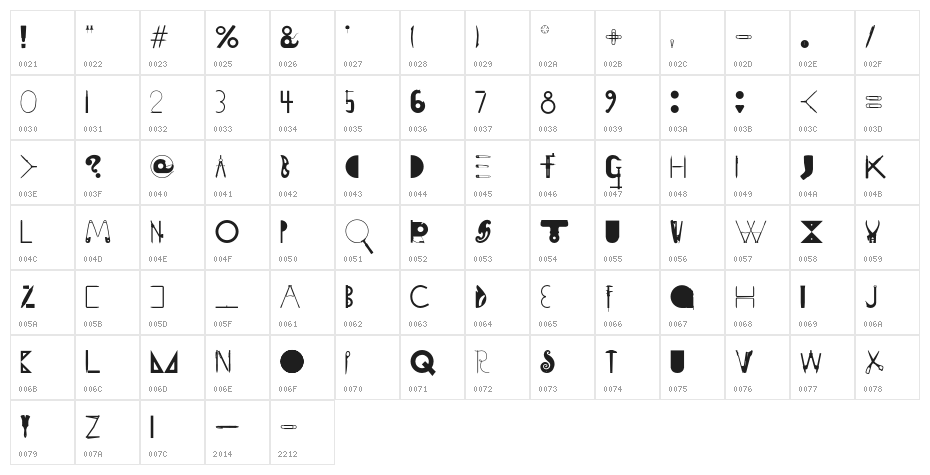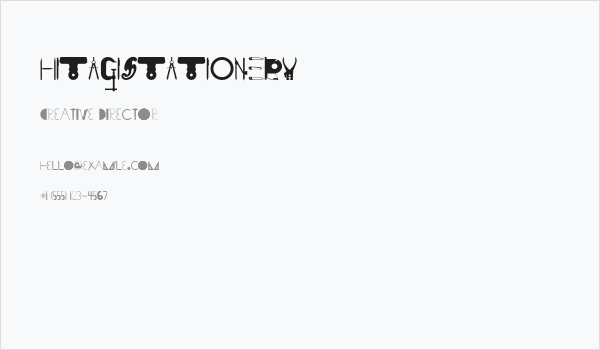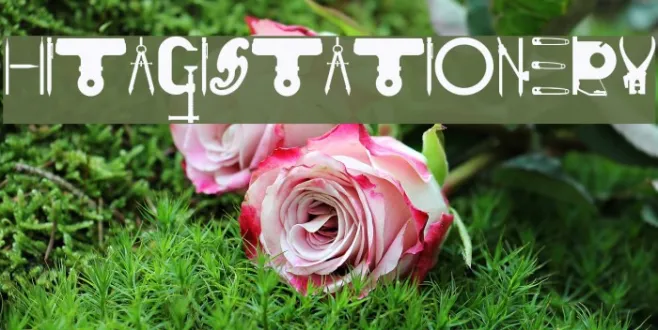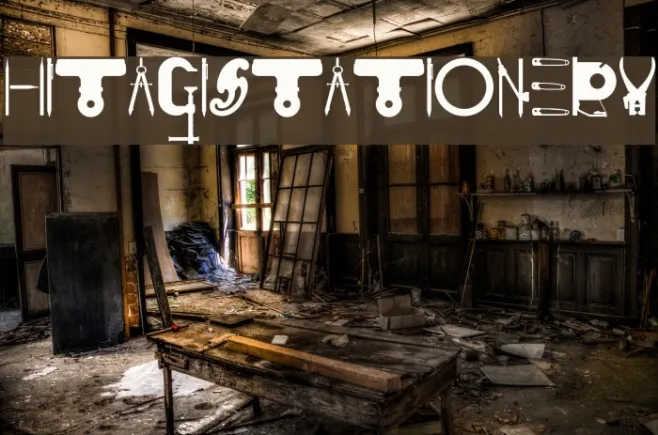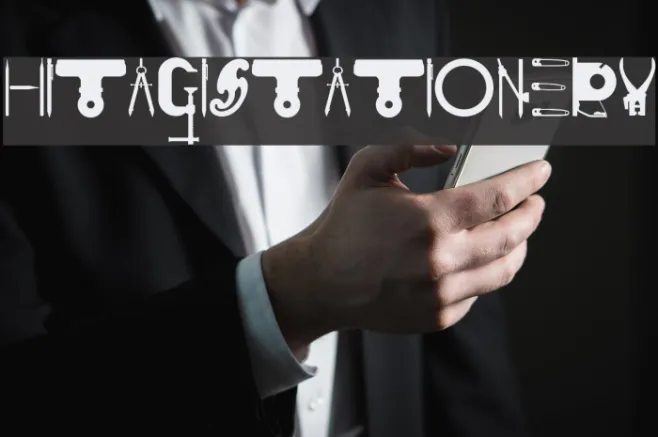
HITAGISTATIONERY Font
HITAGISTATIONERY Description
This font is a creative and eclectic display typeface that incorporates various stationery items into the letterforms. Each character is uniquely designed with elements such as paperclips, scissors, and rulers, giving it a playful and artistic feel. The uppercase and lowercase letters maintain a consistent theme, with bold and imaginative shapes that stand out. The numbers and special characters follow the same design philosophy, making the font cohesive and visually engaging. This typeface is perfect for projects that require a touch of whimsy and creativity, appealing to audiences who appreciate unconventional design.
| Proposed Projects | Ideal for educational materials, children's books, creative branding, and artistic posters. |